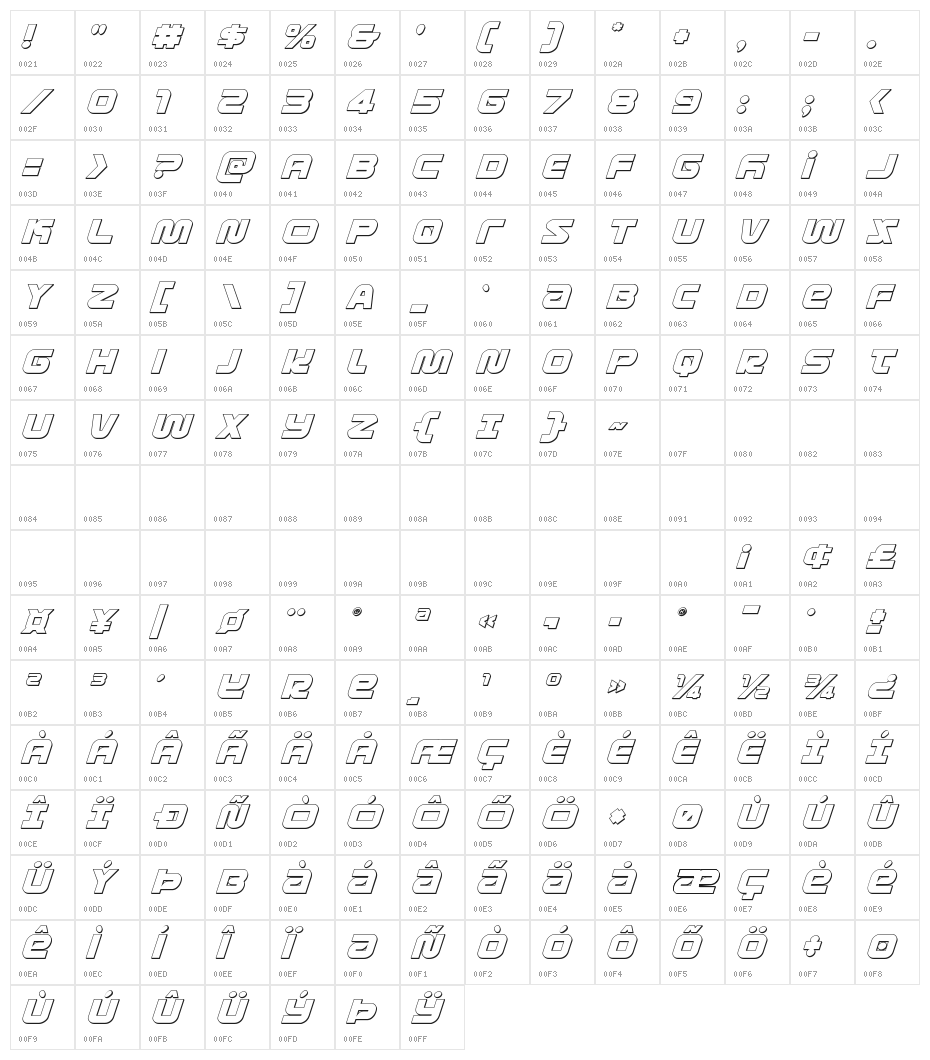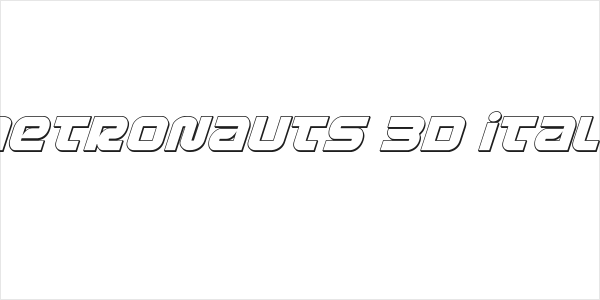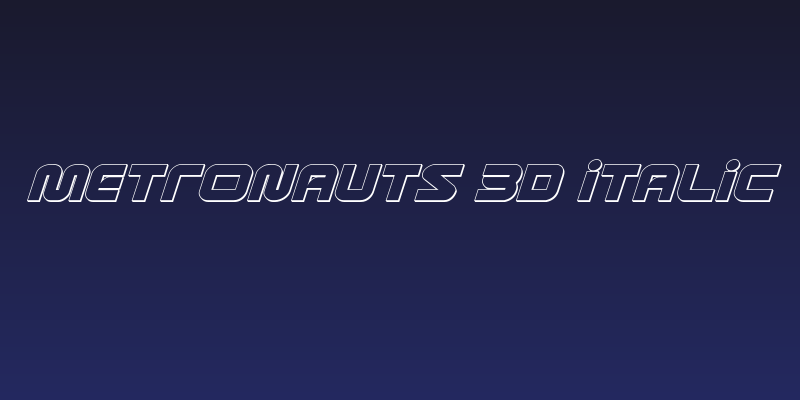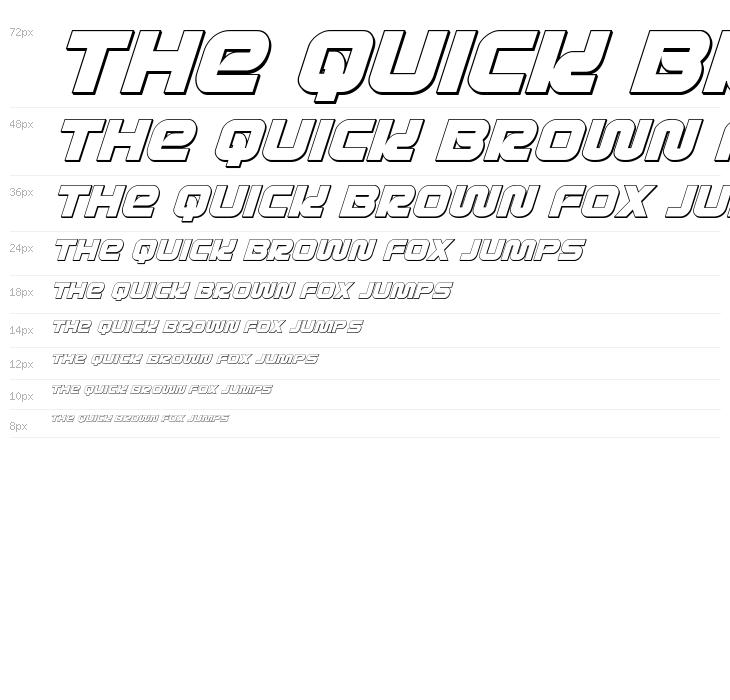
Metronauts 3D Italic Font
Metronauts 3D Italic Description
This font features a bold, futuristic design with a distinct 3D effect, giving each character a sense of depth and dimension. The letters are uppercase and have a geometric, angular style, which is consistent across the alphabet and numerals. The italic slant adds a dynamic, forward-moving energy to the text, enhancing its modern appeal. The characters are outlined, creating a hollow effect that emphasizes the 3D aspect. This style is particularly eye-catching and suitable for designs that require a strong, impactful visual presence.
| Proposed Projects | Ideal for sci-fi themed projects, video game titles, futuristic branding, or any design that requires a modern, dynamic look. |